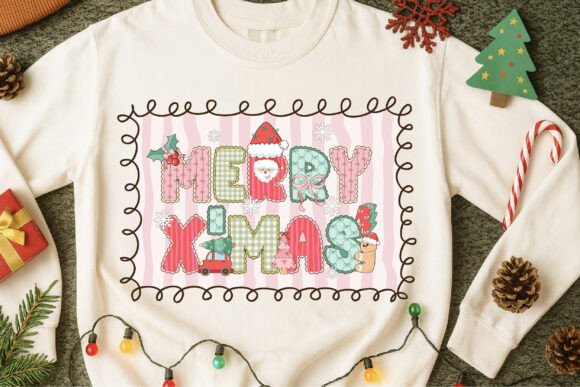
Preppychristmas 4 Font
“Preppy Christmas” is a charming Color Font that combines the cuteness of preppy style with the joyful spirit of the Christmas festival in sweet festive tones.
This versatile set includes 4 unique color font styles and 20 delightful matching doodles, plus 5 free Preppy Frames to add extra fun to your designs.
Perfect for creating eye-catching Christmas posters, quotes, T-shirts, banners, party invitations, stickers, scrapbook pages, DIY crafts, custom names, and more, Preppy Christmas makes it easy to bring holiday cheer to any project with a playful, modern touch.